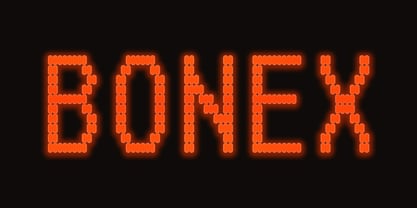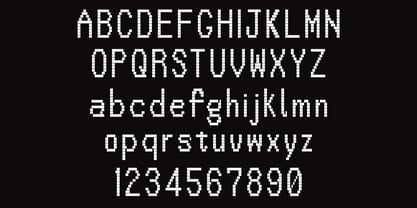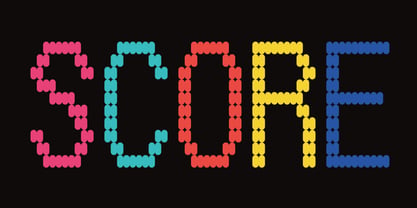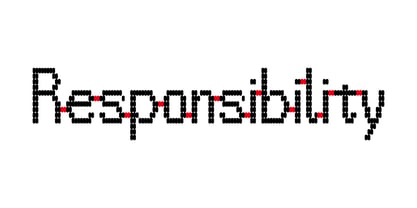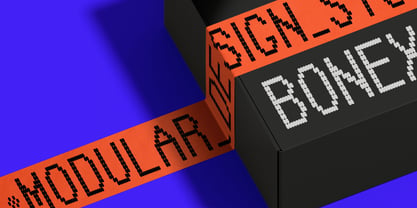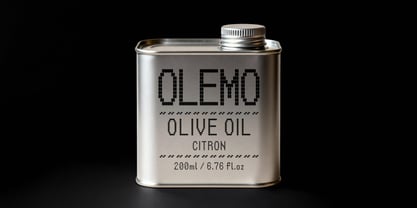
La familia tipográfica Bonex fue diseñada por Dongseok Ham y publicada por High Definition Soul. Bonex contiene 1 estilos. Más información sobre esta familia
Bonex is an English display typeface constructed from rounded capsule
units that interlock and connect — visually embodying the concept of
organic human connection.
Inspired by retro dot matrix systems and modern grid-based design,
Bonex brings a distinctive industrial yet approachable character to
any typographic composition.
Ideal for branding, poster design, logotypes, packaging, and editorial
headlines where bold personality and visual impact are essential.
Bonex includes 197+ glyphs covering uppercase, lowercase, numerals,
punctuation, and Latin extended characters including Western European
languages.